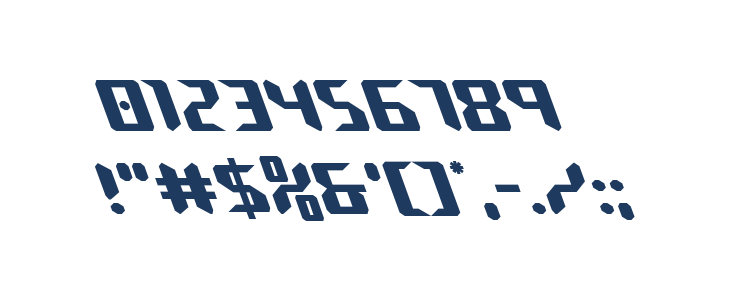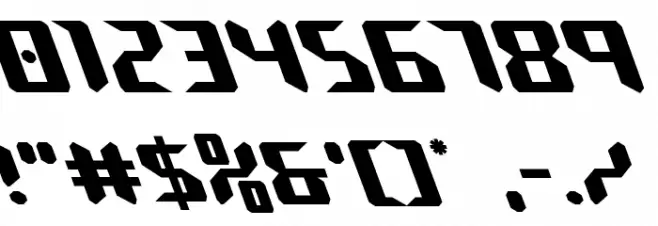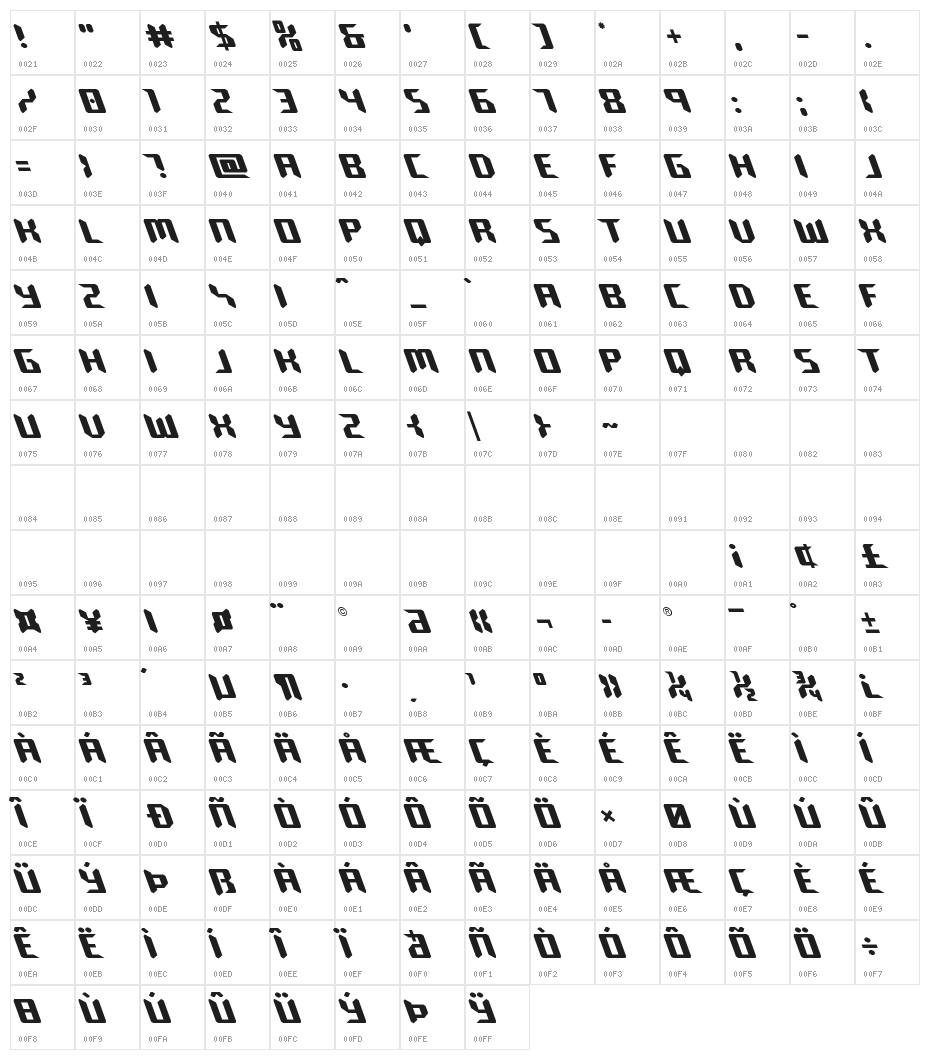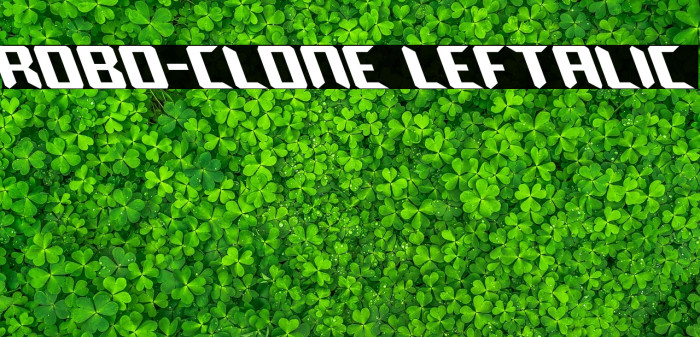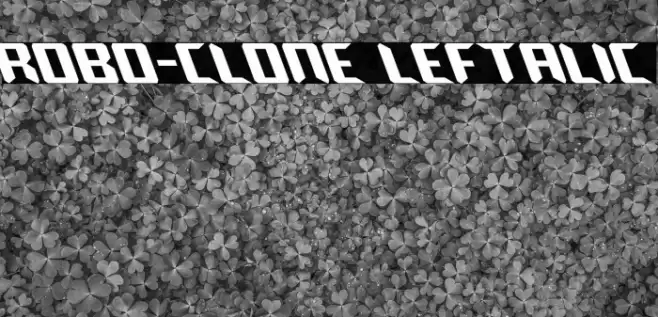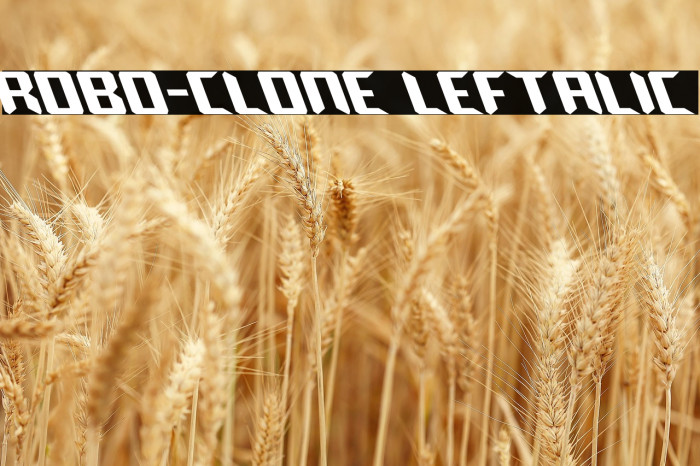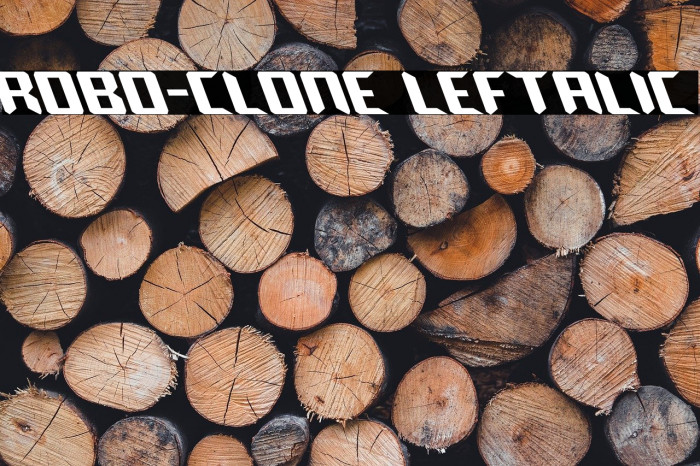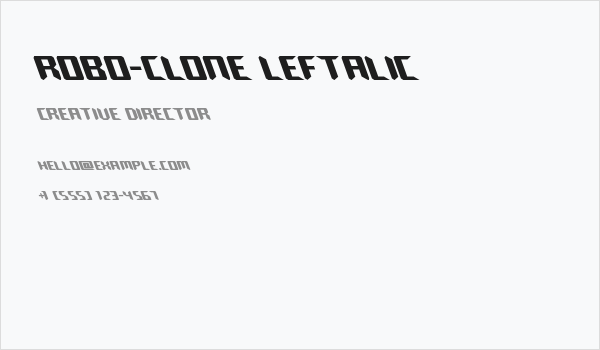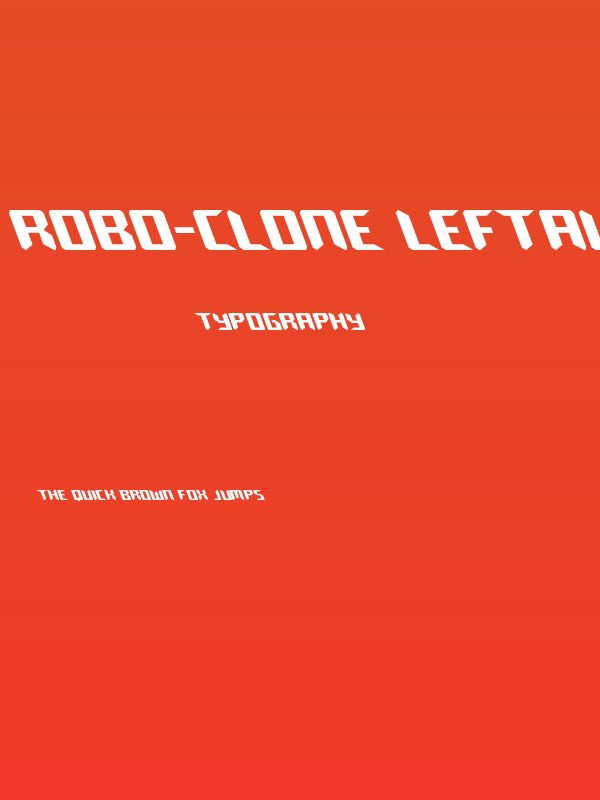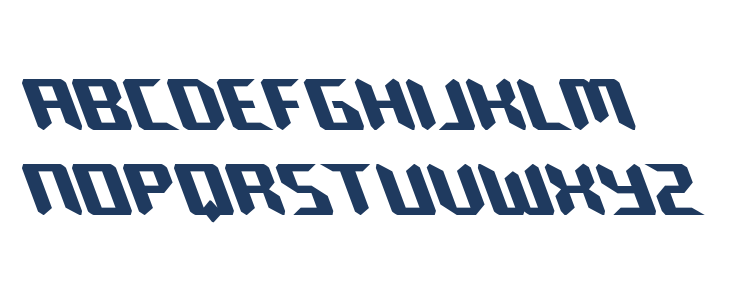
Robo-Clone Leftalic Font
Robo-Clone Leftalic Description
This font features a bold and angular design with a futuristic and robotic aesthetic. The characters are sharply defined with a consistent slant to the left, giving it a dynamic and forward-moving appearance. The geometric shapes and thick strokes create a strong visual impact, making it suitable for attention-grabbing headlines or logos. The uppercase and lowercase letters maintain a uniform style, while the numerals and special characters complement the overall design with similar angularity and boldness.